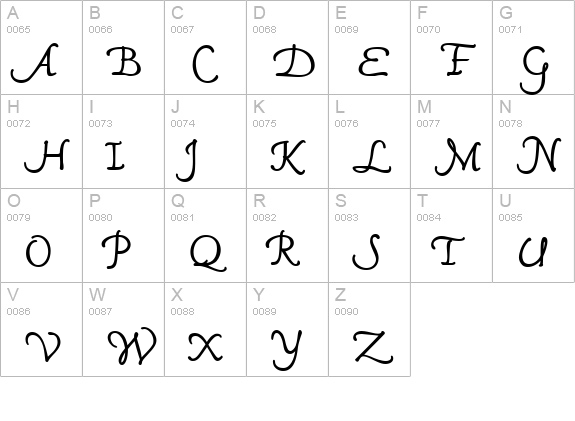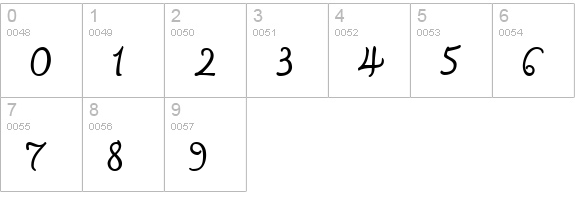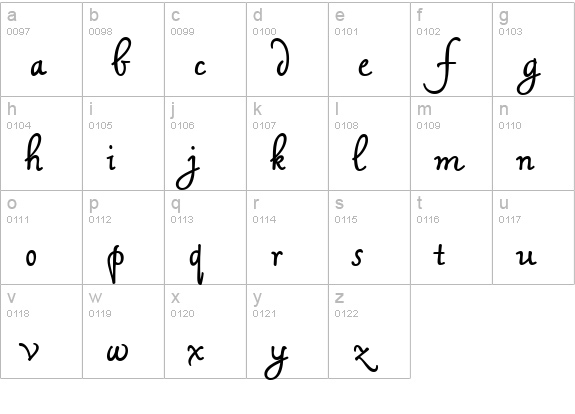
Mama Script Font Details
Mama Script font is a stunning and versatile typeface that exudes elegance and charm. Its flowing and graceful script style makes it perfect for a variety of creative projects, from invitations and greeting cards to logos and branding materials. With its smooth curves and delicate strokes, Mama Script font brings a touch of sophistication to any design. Its unique character set, including a wide range of ligatures and alternates, allows for endless possibilities and customization options. Whether you're looking to add a personal touch to a wedding invitation or create a unique logo for your business, Mama Script font is sure to impress. What sets Mama Script font apart is not only its beauty but also its accessibility. This font is freely available to download at FontsMarket.com, making it accessible to designers and creatives of all levels. With just a few clicks, you can have this exquisite font at your fingertips, ready to elevate your designs to new heights. Don't miss out on the opportunity to enhance your projects with the elegance and versatility of Mama Script font. Download it for free at FontsMarket.com today and let your creativity shine.